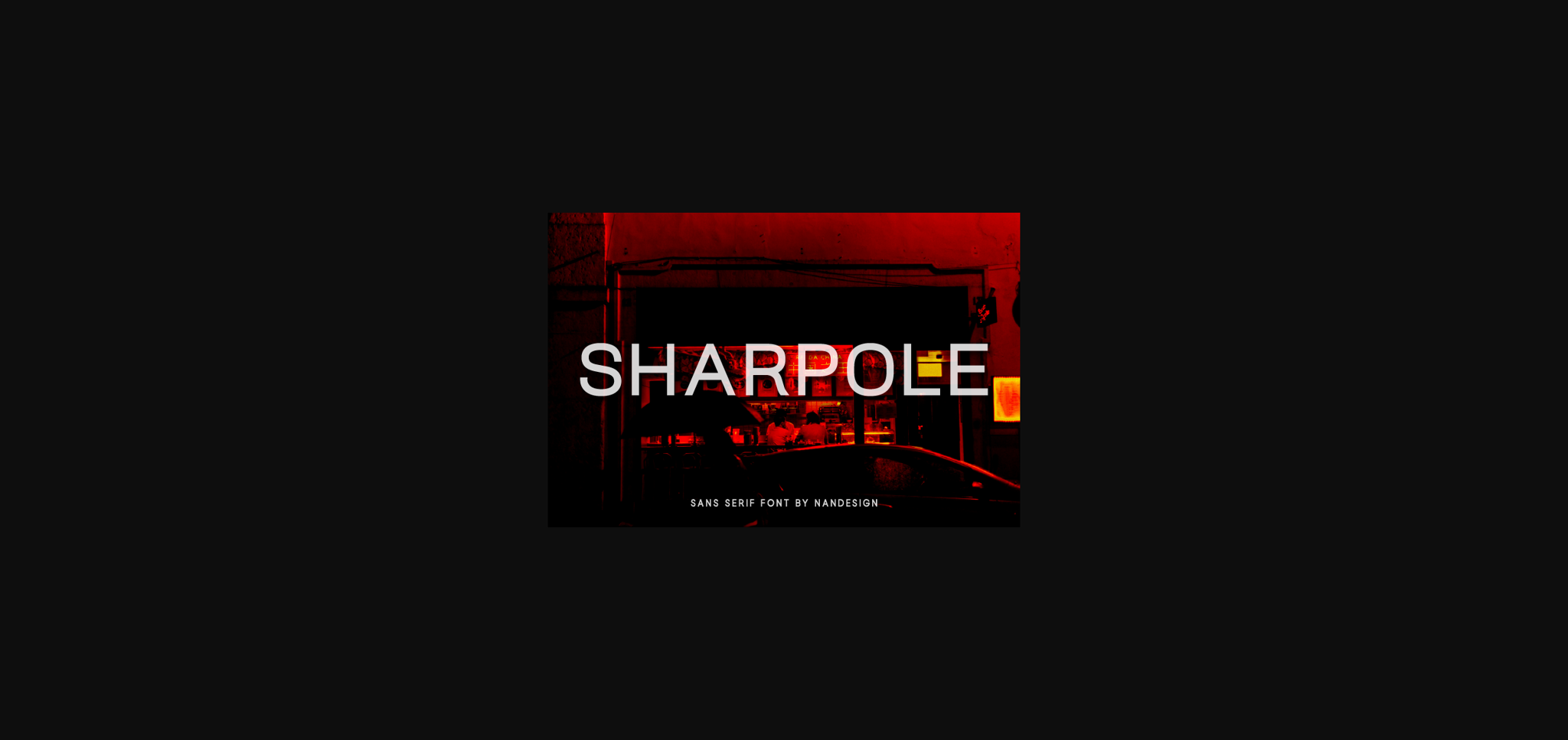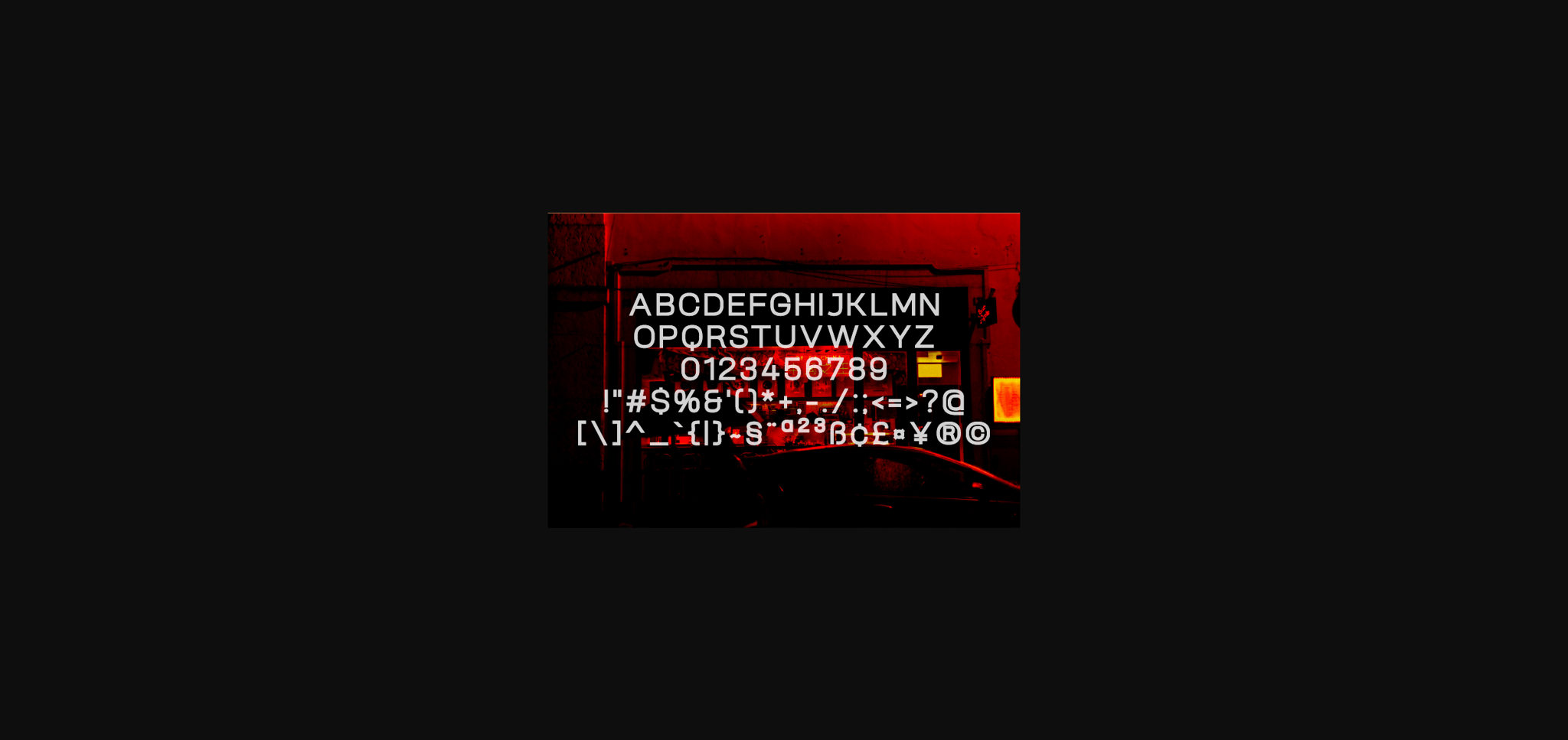
About Sharpole Font
Sharpole is a beautiful, clean and minimalistic sans serif font. It can easily be matched to an incredibly large set of projects, so add it to your creative ideas and notice how it makes them stand out!